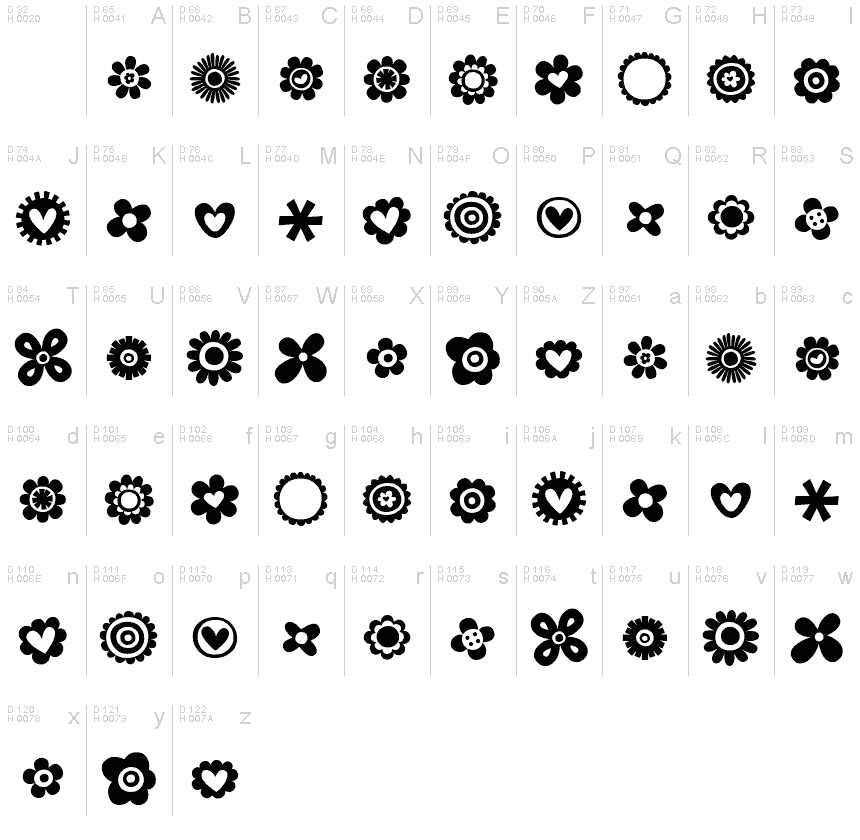
MTF 100 Dings
Effortlessly captivating, the MTF 100 Dings font by Miss Tiina commands attention with its whimsical, floral-inspired dingbats. Blending organic shapes and playful simplicity, this font exudes a cheerful, lighthearted aesthetic that instantly uplifts the viewer. The varied designs, ranging from vibrant blooms to energetic bursts, offer a delightful visual tapestry, seamlessly complementing a broad spectrum of design projects.
The MTF 100 Dings font's versatility shines through its ability to seamlessly integrate into diverse design contexts. Whether crafting playful marketing materials, designing captivating social media graphics, or enhancing the visual appeal of greeting cards and invitations, this font's charming character lends a touch of whimsy and personality to any project. Its versatility empowers designers to elevate their creations, transforming them into memorable, engaging experiences.